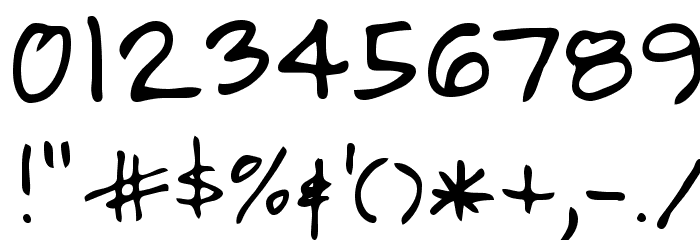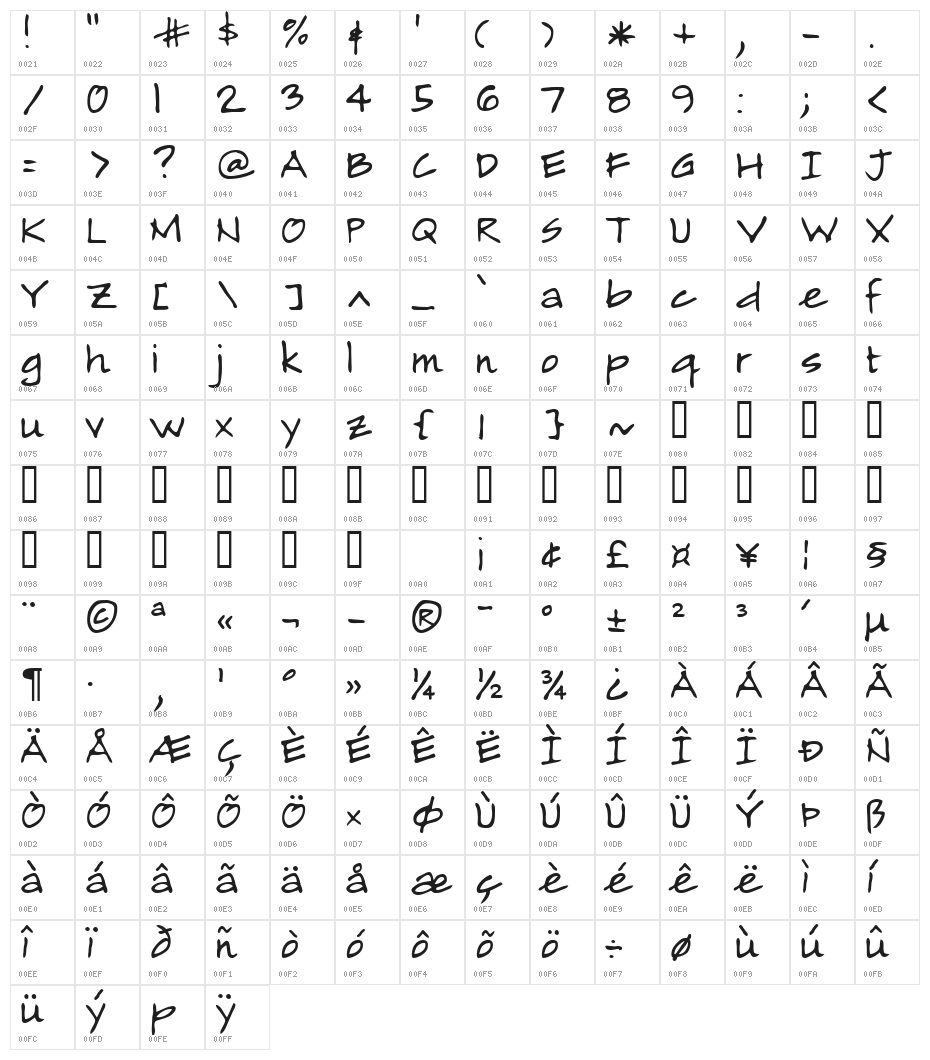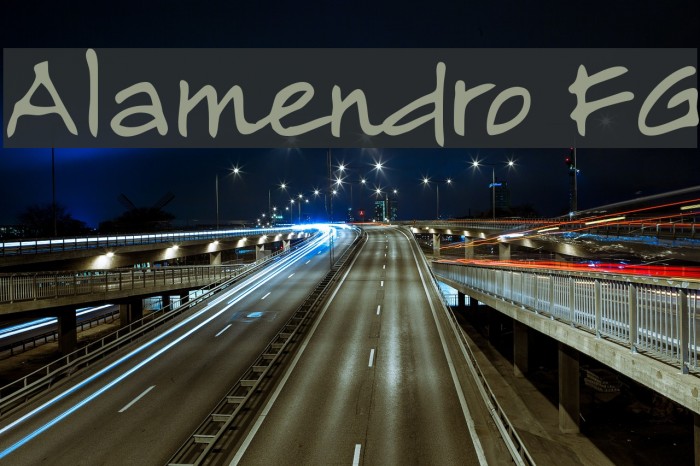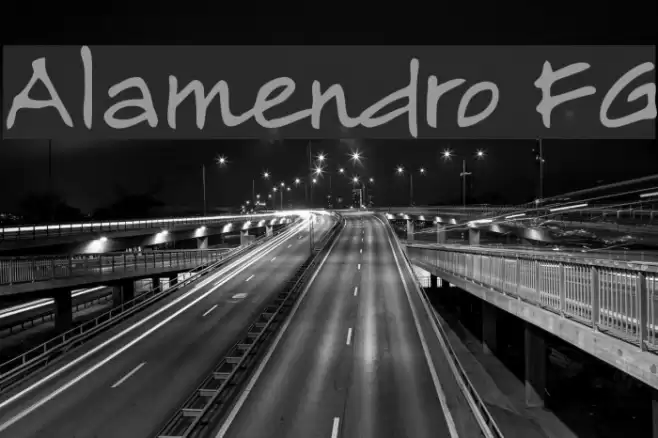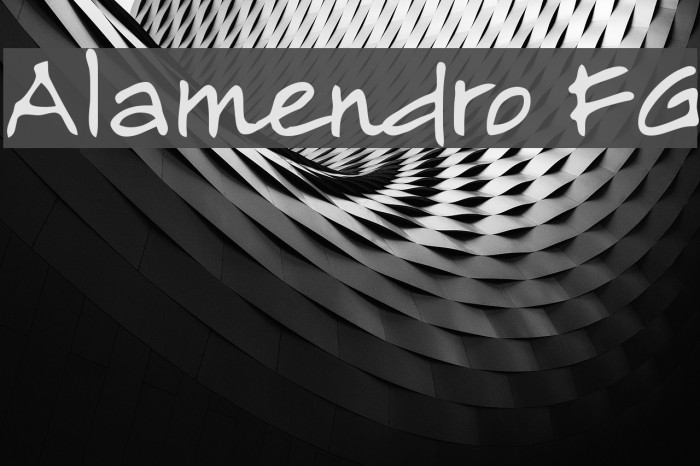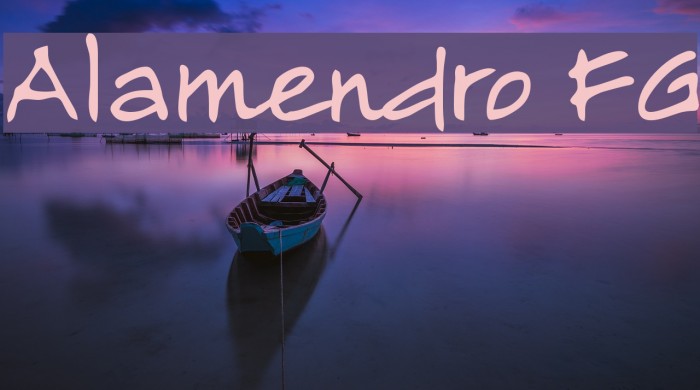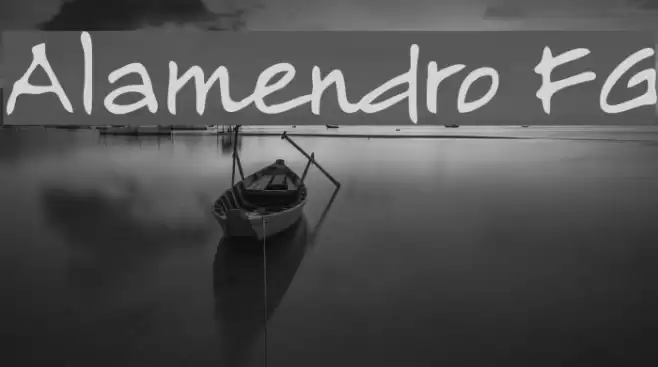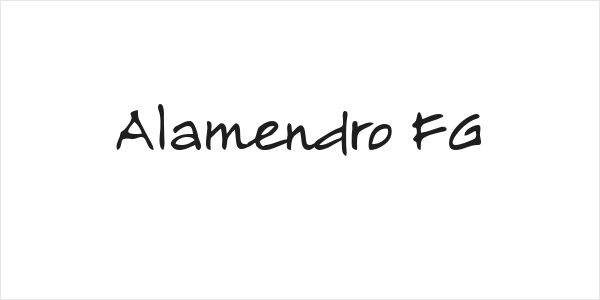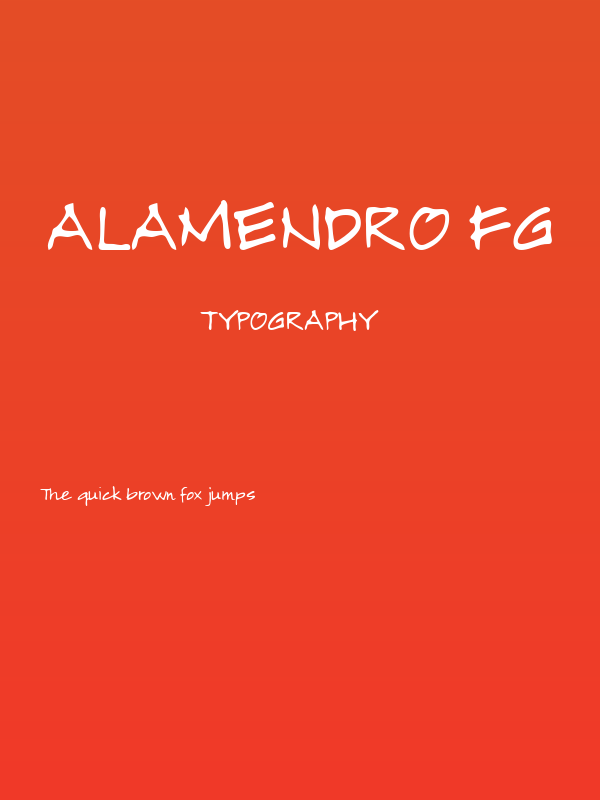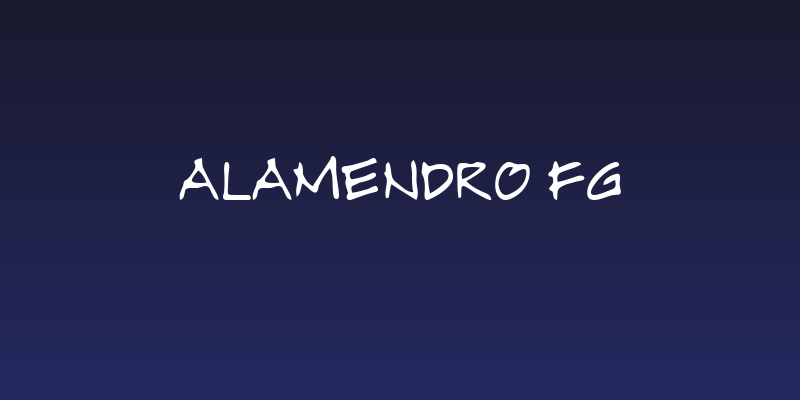
Alamendro FG Font
Alamendro FG Description
This font exhibits a playful and informal handwritten style, characterized by its fluid and dynamic strokes. The letters have a casual, organic feel, with varying stroke widths that add a sense of movement and energy. The uppercase and lowercase letters maintain a consistent style, while the numerals and special characters complement the overall aesthetic. The font's design is approachable and friendly, making it suitable for projects that require a personal touch or a creative flair.
| Proposed Projects | Ideal for greeting cards, invitations, children's books, and creative branding projects. |